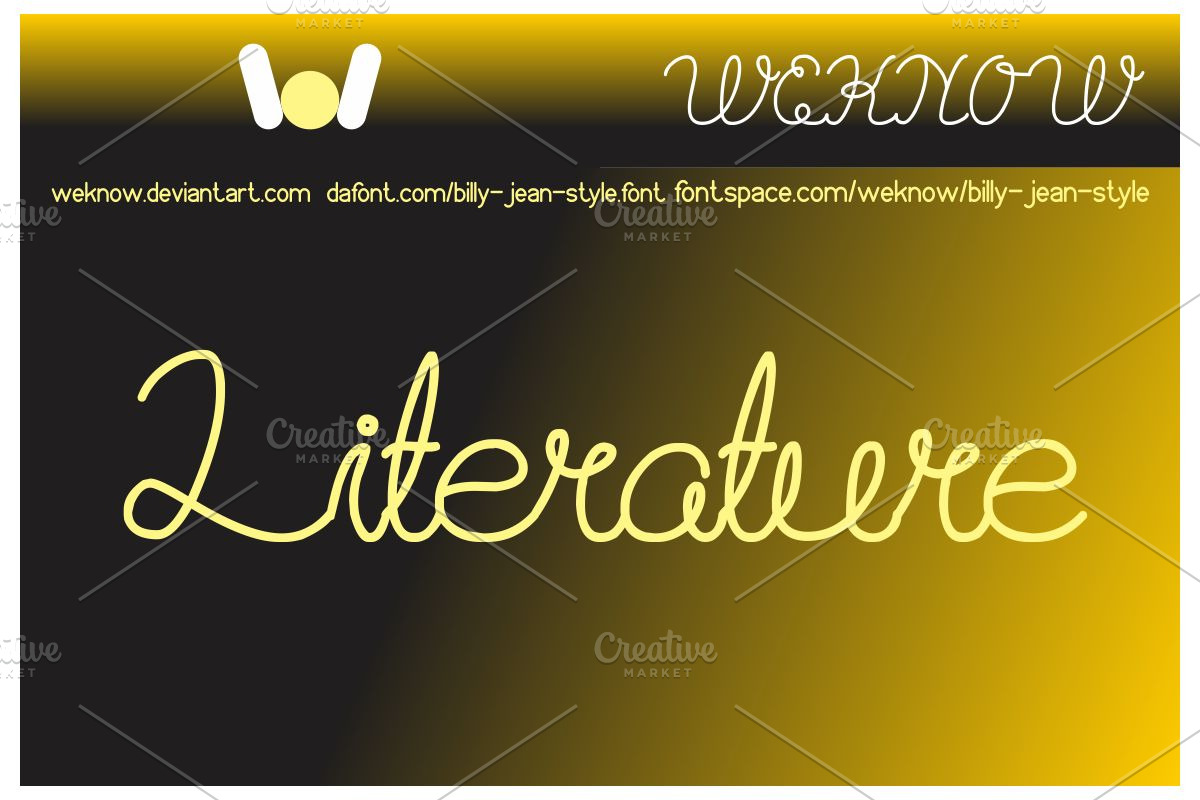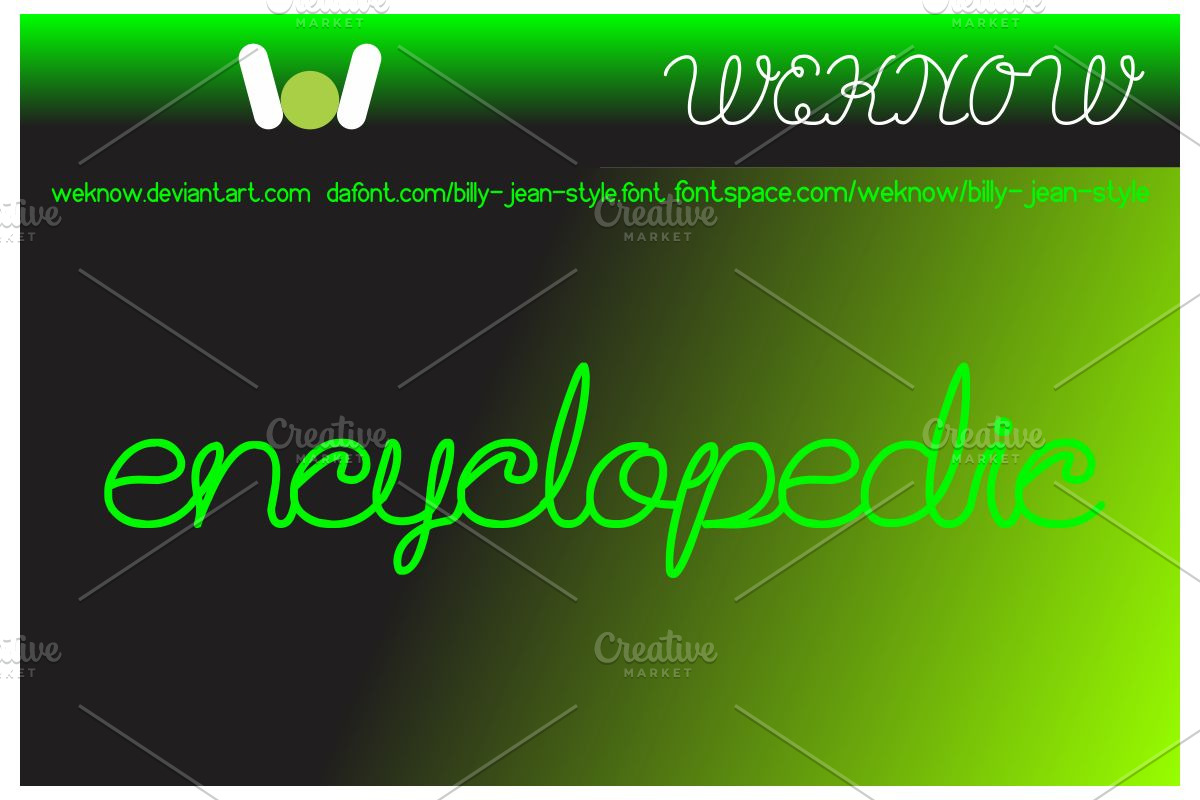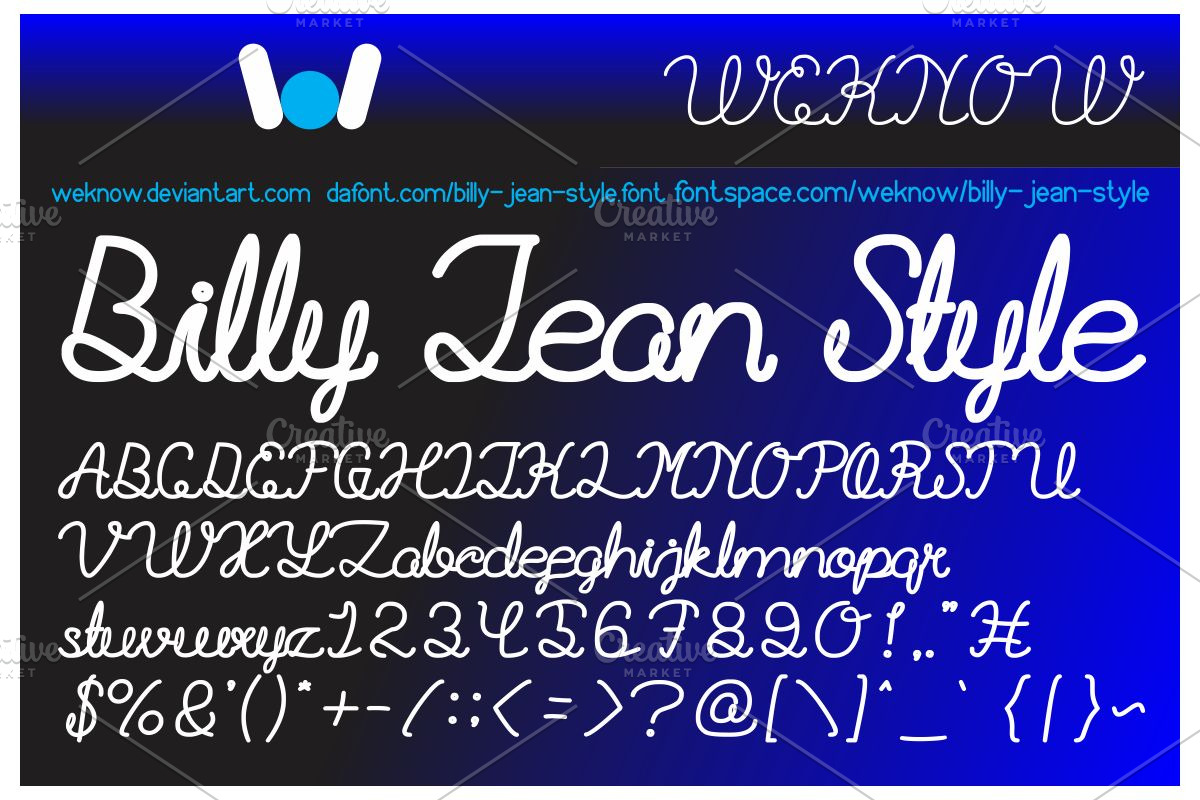
billy jean style font
billy jean style font by weknow is a font selected for branding, posters, packaging, typography.
Why billy jean style font is worth a look
billy jean style font by weknow fits naturally into Branding, posters, packaging, typography.